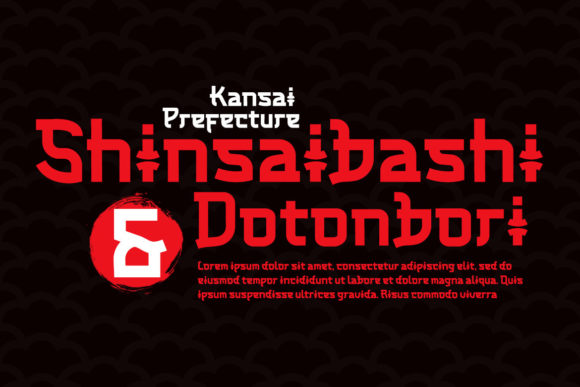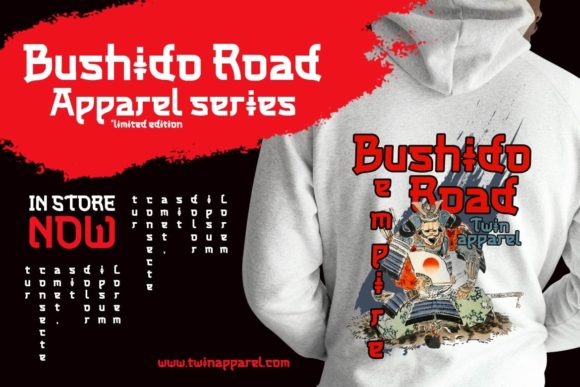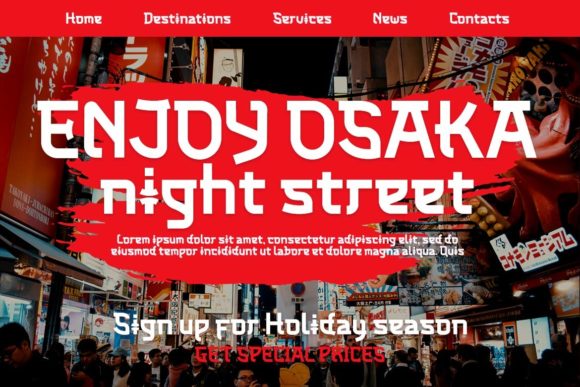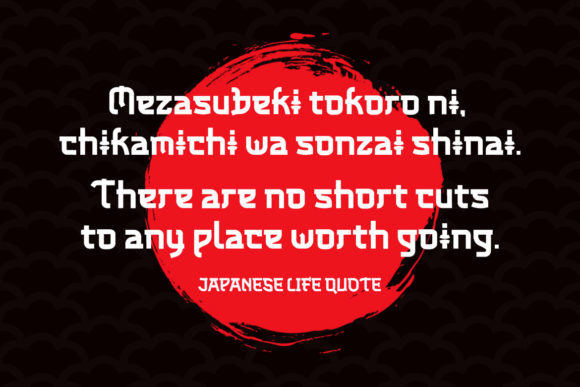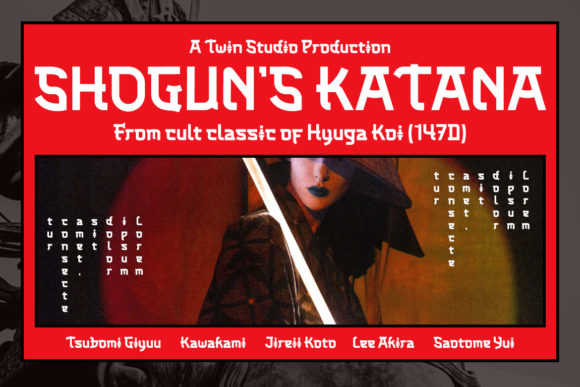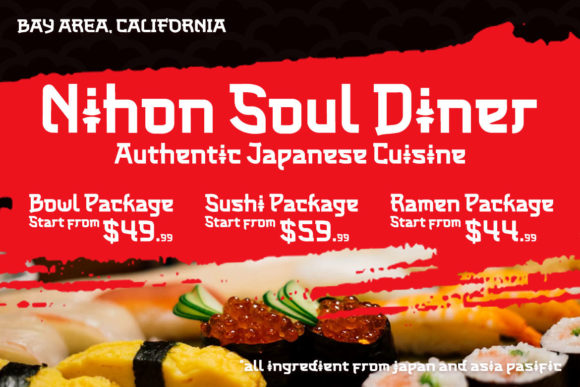
Introduction to Mixiwa Faux Japanese Font
As a designer, you’ve probably found yourself staring at a blank canvas, trying to bring a creative idea to life. You’ve spent hours experimenting with different colors, shapes, and fonts, but something’s still missing. That’s where the Mixiwa Faux Japanese Font comes in – a game-changing design resource that can elevate your projects to the next level. This stunning font is more than just a pretty face; it’s a powerful tool that can add an air of sophistication and elegance to any design.
Whether you’re working on a high-profile branding project or a personal creative endeavor, the Mixiwa Faux Japanese Font is sure to make a lasting impression. With its unique blend of traditional and modern elements, this font is perfect for designers who want to add a touch of Japanese flair to their work. Plus, with its transparent background and high-quality design, you can be sure that your project will stand out from the crowd.
So why settle for a generic font when you can make a statement with the Mixiwa Faux Japanese Font? This free download is a valuable addition to any designer’s toolkit, and it’s waiting for you to unlock its full potential. With its versatility and style, the Mixiwa Faux Japanese Font is the perfect choice for any creative project – from logotypes and food banners to branding and brochures.
Key Features of Mixiwa Faux Japanese Font
- High-quality, faux Japanese font designed for creative projects, offering a unique aesthetic.
- Unique characteristics: The Mixiwa Faux Japanese Font features intricate, hand-drawn details and a stylized aesthetic, making it an excellent choice for designers seeking a distinctive look.
Honest Review: Mixiwa Faux Japanese Font
As a designer, I’m always on the lookout for high-quality design resources to enhance my creative projects. Recently, I stumbled upon the Mixiwa Faux Japanese Font, which caught my attention. Let’s dive into my honest review.
- ✨ The font has a unique and authentic Japanese-inspired design, perfect for adding a touch of cultural flair to your project.
- ⚠️ The font is not ideal for projects requiring precise Japanese typography, as it’s a faux font and not a native Japanese typeface.
- ⚠️ Some characters may not be available, which can be a limitation for more complex designs.
Overall, I’m impressed with the Mixiwa Faux Japanese Font. While it may not be suitable for every project, it’s a great resource for designers looking to add a unique touch to their creative work. With its high-quality design and free download, it’s definitely worth checking out.